Top 20 Fonts That Will Be Popular with Designers in 2022
It’s that time of year again! As the new year approaches, it’s become somewhat of a tradition for us to look back at our students’ work, plus that of the design community in general, to highlight the fonts that are currently in vogue and likely to be big in the coming year. We’ve delved into the biggest Shillington projects, from our six physical campuses and our global body of online students, to predict the typefaces that will matter most in 2022.
These range from the new, radical and hip to traditional fonts that are re-emerging in style. They come from both big, established foundries and smaller, independent ones. And whether you’re working in physical or digital media, we hope they’ll help inspire for your own work over the next 12 months.
Unsure whether you want a serif or a sans? GT Ultra lies somewhere in between, fusing the sturdy context of the former with the dynamism of the latter. Finding a superb balance between flair and function, this is a unique typeface that will really help your design work turn heads.
Fresh from CoType, Altform is a beautiful marriage between a geometric sans and a grotesque, giving it a universally neutral appeal. At first sight, it appears solid and deceptively simple; upon closer inspection, you’ll notice tiny exquisite curves in characters like R, t, and k, which give it a subtle sense of sophistication.
Designed by Robert Huber, Prisma Text from Lineto is full of expression and life. This geometric sans boasts a strikingly fresh and modern look while remaining highly legible, making it a great choice for body text, particularly at around 16pt sizes.
The idea behind TT Rationalist is quite something: to provide designers with a collection of matching fonts, each of which is still unique. It sounds like an impossible task, but TypeType has pulled it off with aplomb with this slab serif. Functional and original, its serifs are trapezoidal and refined, which makes them look strikingly modern.
Zubtrak is a stencil display family in two styles designed by Vaibhav Singh. Its heady combination of sharp angles and restrained curves make for a truly original font. If you want your designs to be visually distinctive, this is an excellent choice.
A tribute to the Didot archetype, Didot Modern is a typeface for text composition of all kinds. With its delicate thin strokes and precise details, it looks stunning at large sizes and is a great choice for corporate design or advertising projects.
Kobe is a sans-serif designed for reading, based on geometric letterforms with optical corrections. Its well-proportioned modular structure made it a great choice for body text, while its playful terminals and many alternates make it also suitable as a display font. The regular version has just undergone a subtle makeover and now comes with five additional weights.
Voyage is a display typeface that’s romantic, curvy and inspired by global travel. It features delicate hairlines for maximum contrasts, from the eye of the lowercase ‘e’ to the curly ‘h’. Overall, it’s a strong contender for use in headlines, or short to medium-length text.
SangBleu is the name of both a media agency and a series of fonts designed by Swiss Typefaces between 2007 and 2017. Now they’ve released an all-new version, consisting of five full-featured collections: Empire, Kingdom, Republic, Versailles, and Sunrise. Each comes in four or five weights, all of which are accompanied by matching italics.
Basteleur is an unusual serif that’s basically a fun blend of medieval styles and Cooper Black-ish typefaces. It was created by French type designer Keussel to represent all the things a designer can experience: namely, “new beginnings, having fun, crafting, but also a lack of confidence and having a hard time to finish projects”.
A small bouncy serif with dynamic contrast, Brice has a wonderful 80s feel and would be a good choice for any display project. Designed by Cahya Sofyan, it’s available in five widths with a matching six weights and support for 75+ languages.
Eiko is an original serif with high contrast that’s inspired by the work of Japanese artist Eiko Ishioka. It supports many languages and includes the Japanese syllable alphabets, hiragana and katakana. This font is ideal to pair with other kanji fonts of the mincho style.
FS Me is designed specifically to improve legibility for people with learning disabilities. It was developed with and endorsed by UK charity Mencap, and every character has been tested for its appeal and readability with a range of learning disability groups. Mencap receives a donation for each font license purchased.
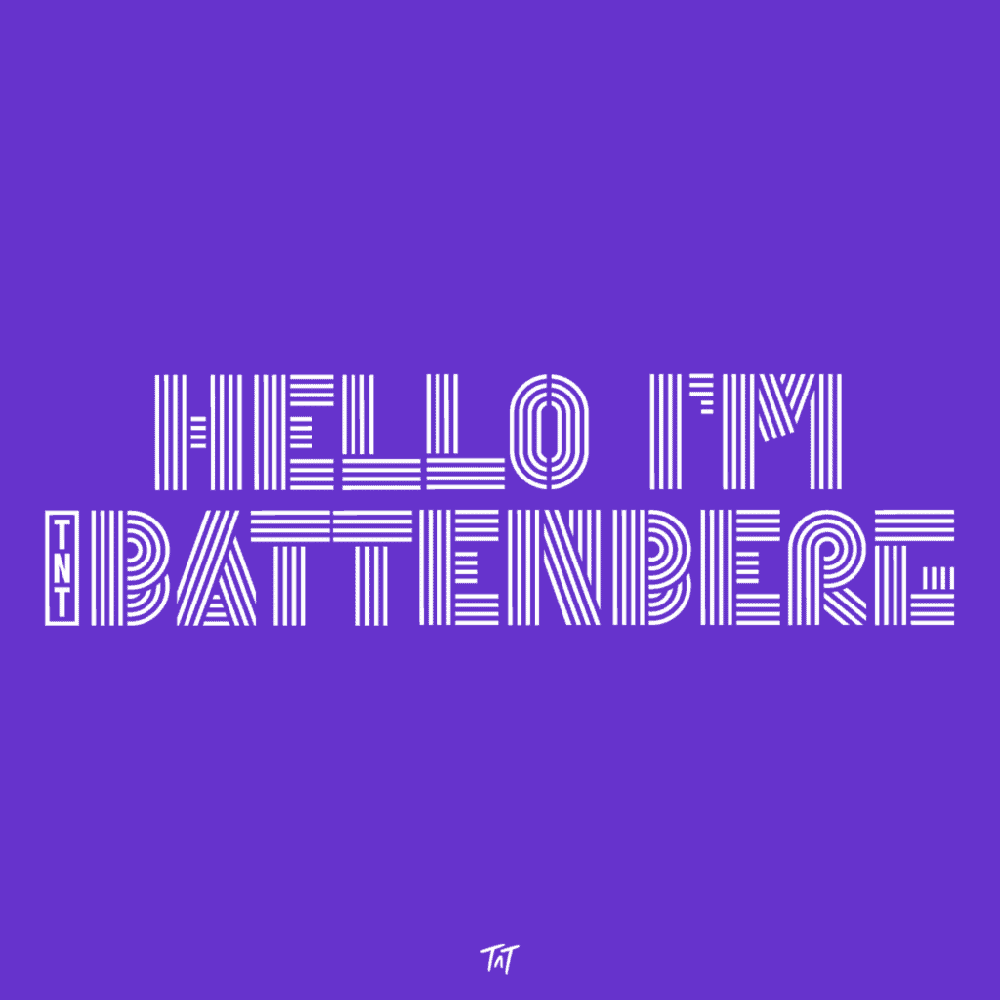
TNT Battenberg is an uppercase display font that’s big, bold and fun. It’s built from the starting point of four parallel lines and would provide a strong impact in packaging and branding designs. Incorporating Open Type features, TNT Battenberg is also very flexible and would pair well with more neutral sans-serifs in typographic layouts.
Based on Baskerville, the classic 1941 typeface from American Type Founder, Libre Baskerville is a contemporary web font optimised for body text. Its tall x-height, wide counters and restrained contrast means it works well for reading on-screen.
Cotford is a contemporary serif from Monotype’s Tom Foley that’s dynamic, adaptable, and ever-surprising. This languid font ranges from delicate thins to bold heavyweights and follows a traditional model of three text and five display weights. Alternatively, you can use it as a variable font for the ultimate design flexibility.
Herokid is a grotesque style font inspired by classic fonts like Helvetica, Impact and Univers. A family, with 96 variants adaptable to kinds of design projects, it’s a great way to give high impact to your headlines, subtitles and/or body text.
Anton is a reworking of traditional advertising sans-serifs for use as a bold display font in modern web browsers. The letterforms have been digitised and reshaped, the counters have been opened up a little, and the stems have been optimised for display.
DelaGothic is a flat, thick Gothic body available for free from Google Fonts. Its letters flow into each other beautifully, and its overall stability and strength make it a good option for use in posters and packaging.
Originally inspired by the 1965 sans-serif Impact, Alumni Sans is a similar font to Trade Gothic, but free (again from Google Fonts) and variable. A great choice for advertising media, the extreme weights (Thin and Black) are designed for display situations, while the remaining weights may be used for more traditional textual design applications.